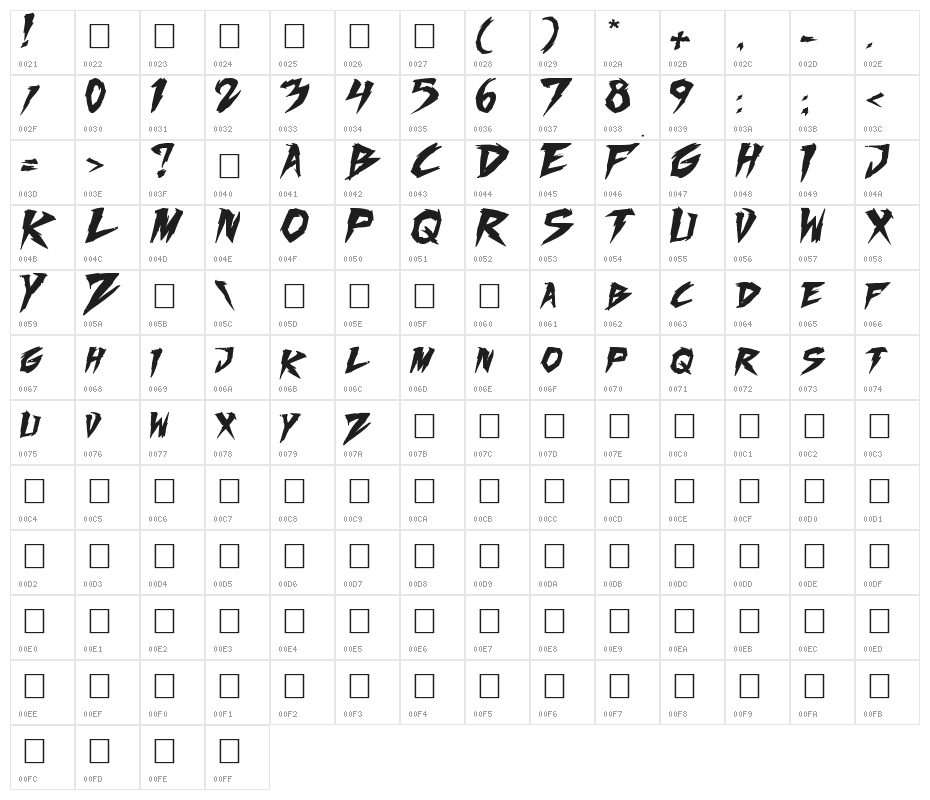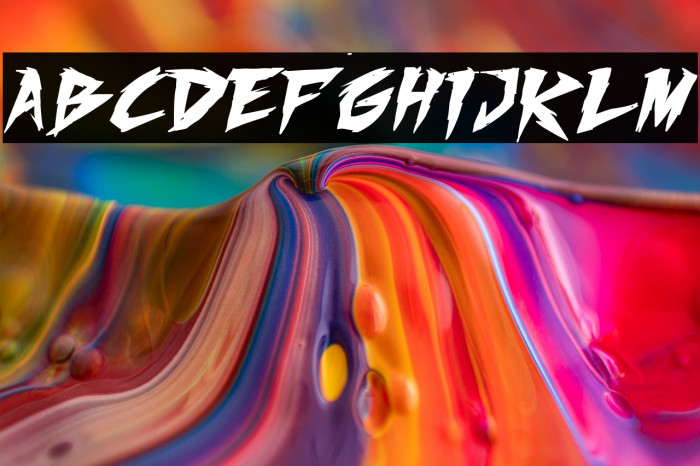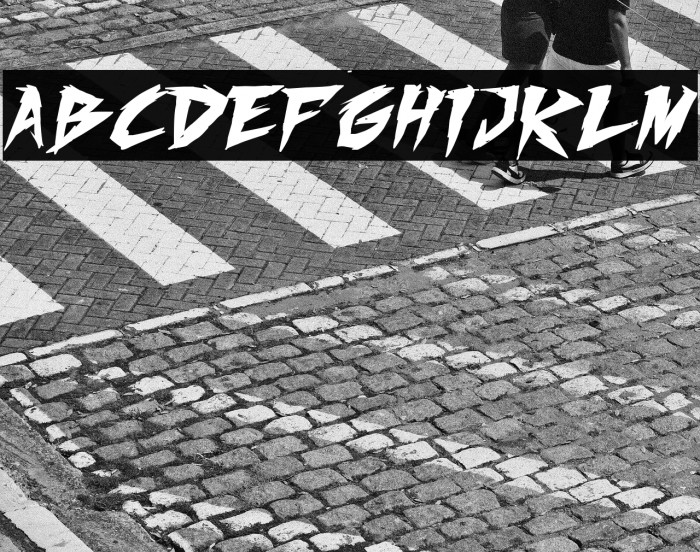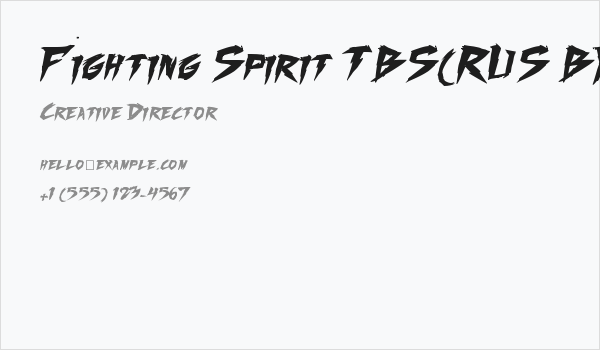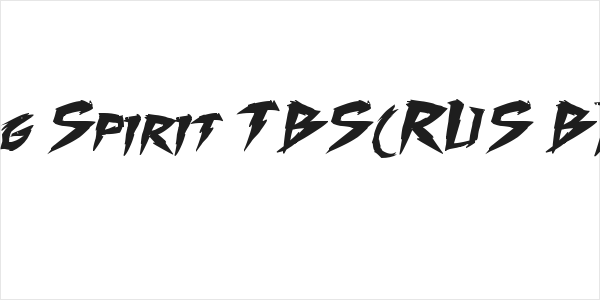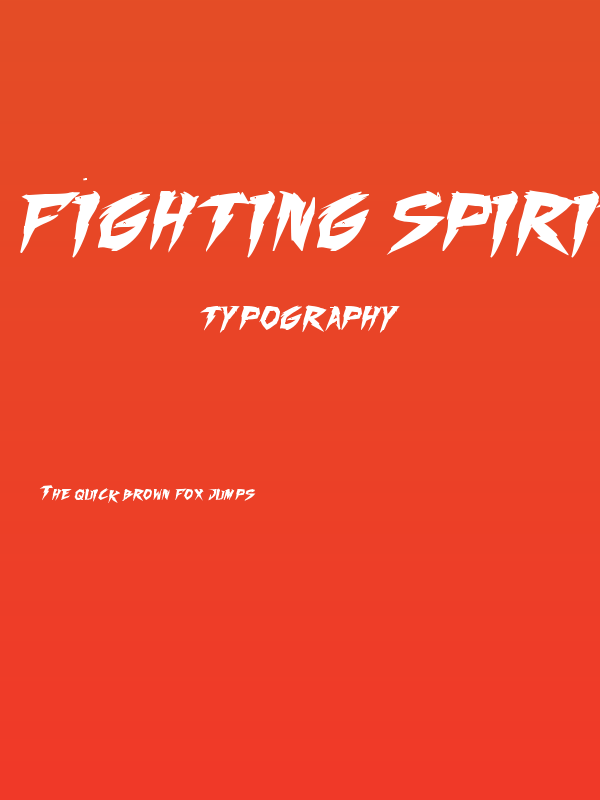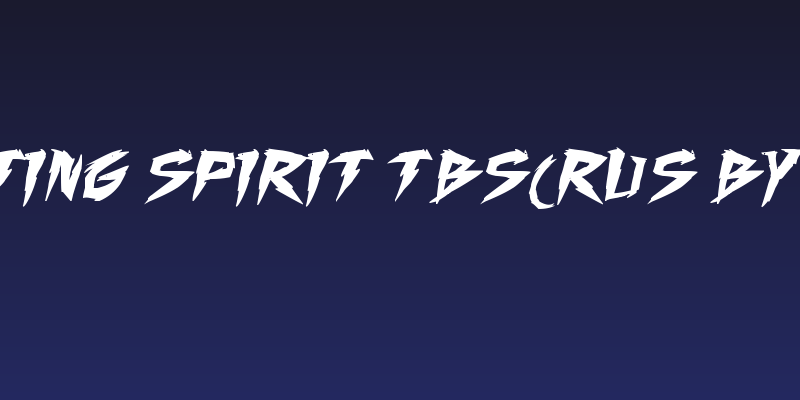
Fighting Spirit TBS(RUS BY LYAJ Font
Fighting Spirit TBS(RUS BY LYAJ Description
This font features a bold and aggressive style with sharp, angular edges that convey a sense of energy and movement. The characters are designed with a jagged, almost torn appearance, giving them a dynamic and rebellious feel. The uppercase and lowercase letters maintain a consistent style, with exaggerated strokes and pointed terminals that enhance the font's dramatic impact. The numbers and special characters follow the same design principles, ensuring a cohesive look across all glyphs. This font is ideal for projects that require a strong, impactful visual presence.